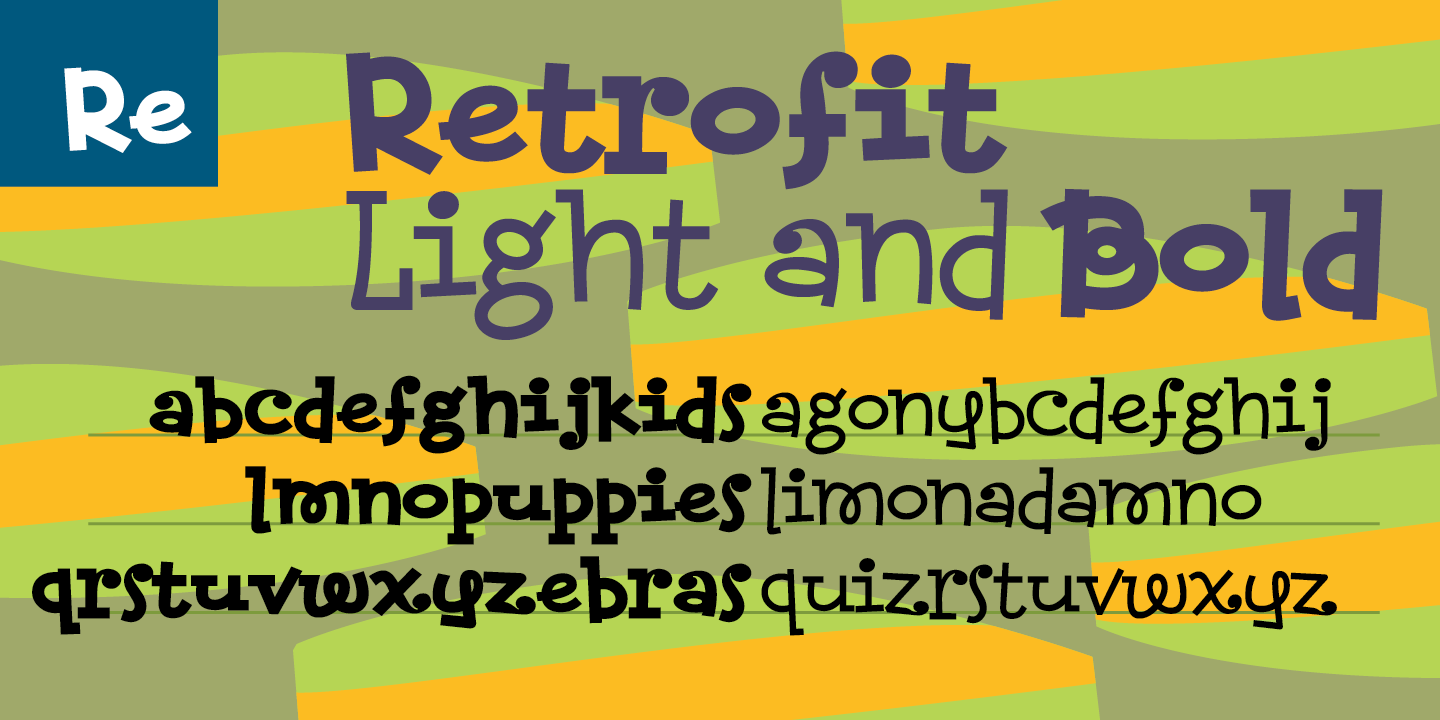
Retrofit Font is perfect for vintage modernization projects, classic car restoration branding, retro-futuristic designs, architectural renovation materials, heritage building updates, classic brand revivals, nostalgic tech product marketing, vintage-inspired startups, restored classic entertainment venues, and timeless design renewals. This sophisticated typeface excels in applications where classic heritage and modern innovation need to be communicated with seamless integration and respectful updating that honors the past while embracing contemporary functionality and style.
What makes Retrofit Font exciting is its extraordinary ability to bridge the gap between vintage charm and modern sophistication through its thoughtfully designed letterforms that capture the essence of respectful restoration and intelligent modernization. The font embodies the spirit of careful renovation with its balanced construction and updated proportions that suggest the skilled craftsmanship required to preserve historical character while incorporating contemporary improvements. Its meticulously refined character details and transitional personality create an atmosphere of thoughtful evolution that resonates with designers, architects, and business owners who understand the value of honoring heritage while embracing progress.
The Retrofit Font family typically includes Light, Regular, Medium, and Bold weights, each maintaining the signature transitional characteristics and heritage-modern balance. Some versions offer Italic variants that enhance the flowing progression from old to new, alternative character sets with both vintage and contemporary elements, and specialized symbols that bridge historical and modern design languages. The family may also include condensed styles for efficient layouts and display cuts optimized for renovation and restoration applications requiring authentic transitional appeal.
Whether you're creating heritage renovation brands, classic restoration materials, or vintage-modern fusion designs, Retrofit Font Free Download delivers the perfect balance of heritage and innovation your transitional projects deserve. Its retrofitting character and evolutionary styling make it an invaluable choice for restoration specialists, heritage brands, and progressive companies working in renovation, classic restoration, and heritage modernization sectors where authentic respect for tradition and intelligent contemporary updating are essential for creating meaningful connections between past and future.